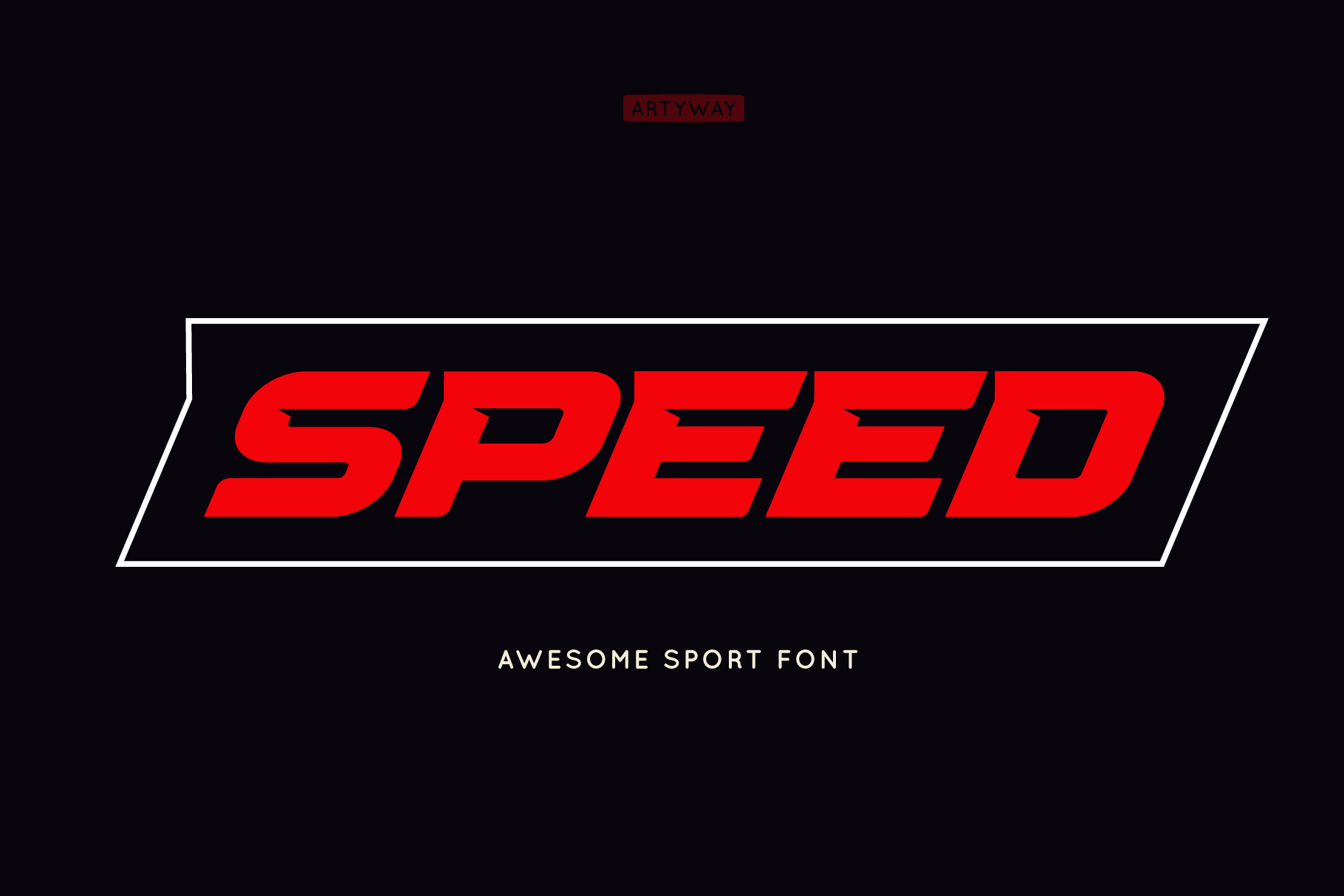
Headline Speed Font
I suggest you to pay attention to the "Speed" font.
It's bold, with sharp corners and some slope for dynamic effect. "Speed" font has a unique charm and easy visual readability, so it's perfect for headlines, whether for sports events, automotive posters, logo or monograms designs.
- Uppercase english letters
- Basic punctuation
- Some ligatures